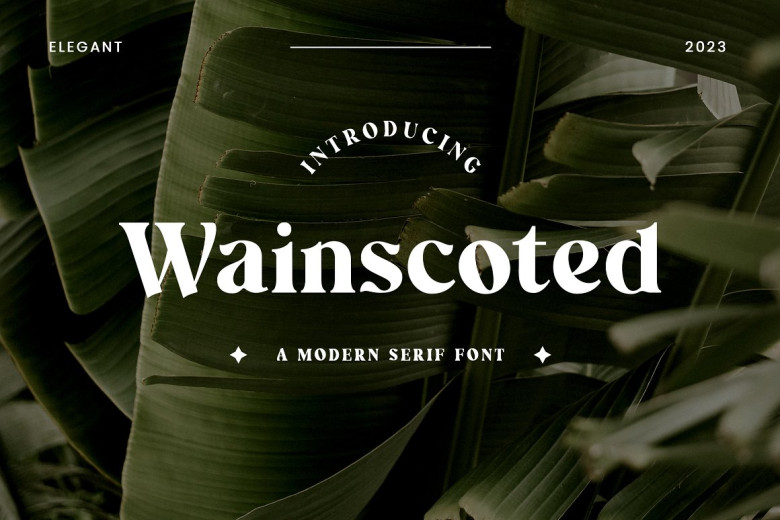
Wainscoted Font
Wainscoted is a modern serif font that feels elegant, pure, and modern in taste. This font is ideal for a variety of projects: signature, stationery, logo, wedding, typography quotes, magazine or book covers, website headers, clothing, branding, packaging design etc.
Wainscoted Serif Font